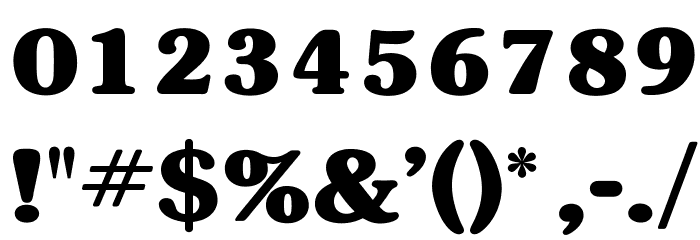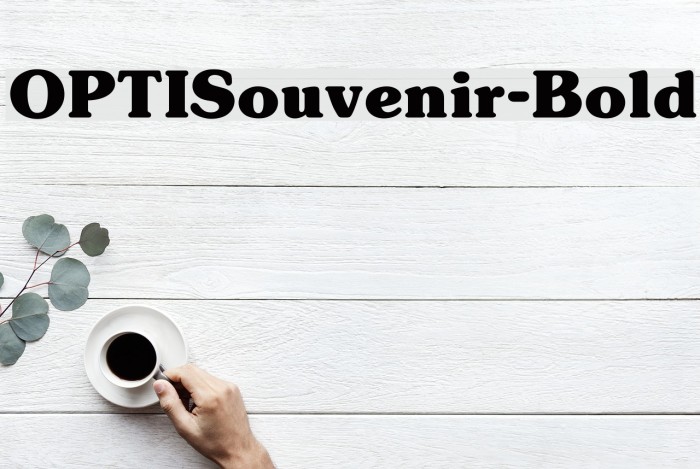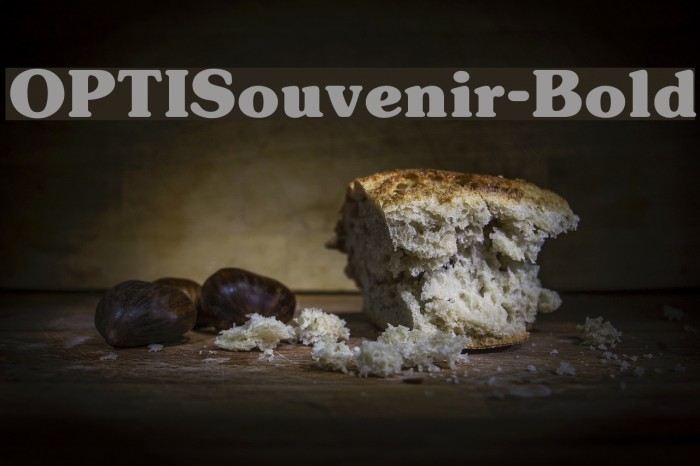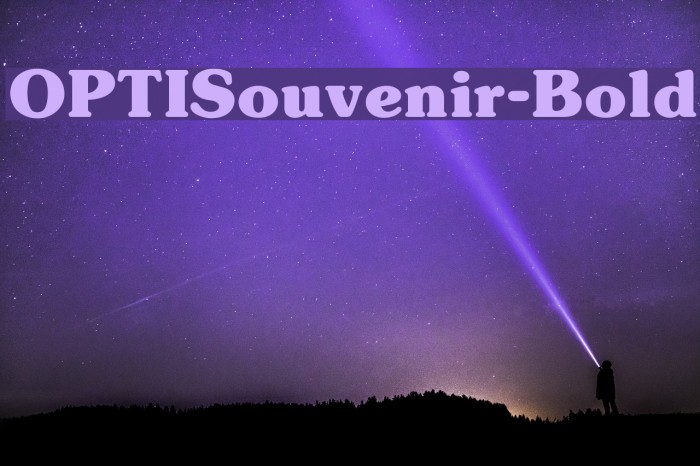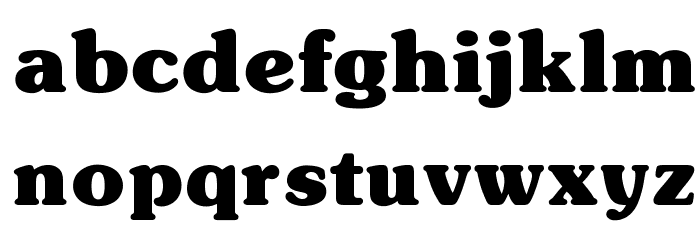
OPTISouvenir-Bold Font
OPTISouvenir-Bold Description
This font features a bold and robust design with a strong presence, characterized by its thick strokes and rounded serifs. The uppercase letters are solid and commanding, while the lowercase letters maintain a consistent weight, offering a harmonious balance. The numerals are clear and legible, making them suitable for various applications. Special characters are well-defined, adding versatility to the font's usage. The overall style is classic yet modern, making it adaptable for both traditional and contemporary projects.
A bold, serif font with thick strokes and rounded serifs, offering a classic yet modern appeal from Uncategorized fonts.
- Proposed Projects: Ideal for branding, headlines, posters, and any design requiring a strong, impactful typeface.
- Overall Style: Classic
- Use Case: Headlines, Logos, Branding